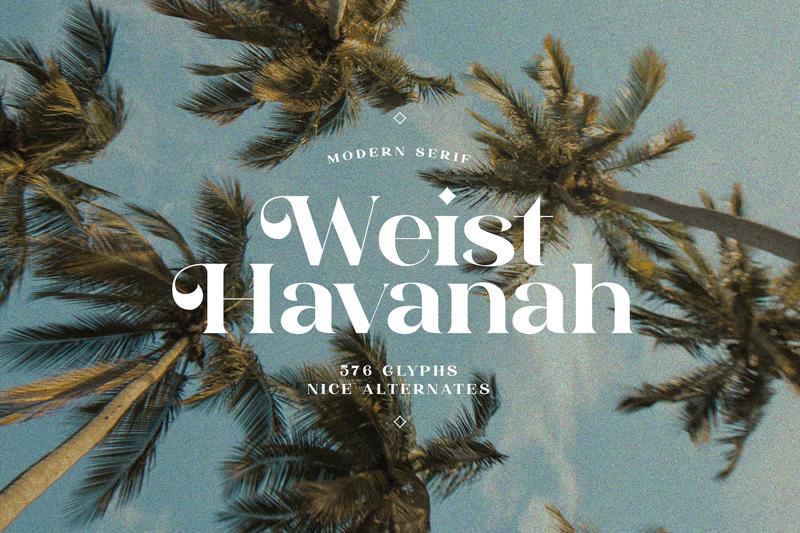
Preview and download HV Weist Havanah Font. Created by Harmonais Visual in Basic Serif styles with Free for personal use license.
Weist Havanah - a modern serif, display typeface with beautiful uppercase lettering and a touch of fashionable look. You will be pleased to use many options of alternates and ligatures, perfectly suitable for creating nice, fashionable, lifestyle design such as logos, mash head, title, and wedding paper. Font is FREE for PERSONAL USE. Contact us for commercial use and questions: hello@harmonaisvisual.com - LICENCES FOR PERSONAL AND COMMERCIAL WORK https://creativemarket.com/harmonais.visual https://www.myfonts.com/foundry/harmonais-visual/ https://www.youworkforthem.com/designer/1272/harmonais-visual https://www.fontspring.com/foundry/harmonais-visual https://www.designcuts.com/vendor/harmonais-visual/ - Harmonais Visual | www.harmonaisvisual.com Let's connect https://www.instagram.com/harmonais.visual More... |